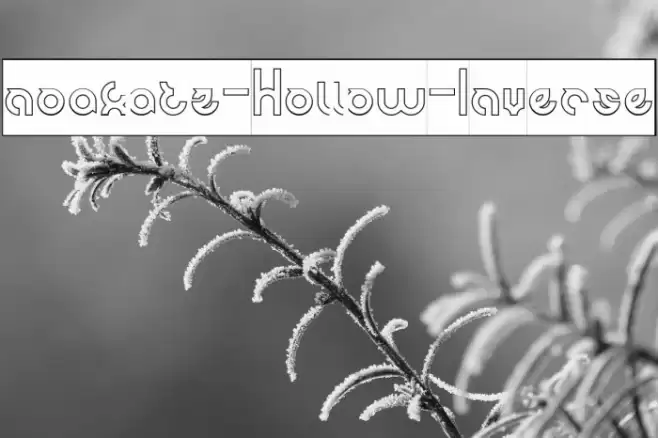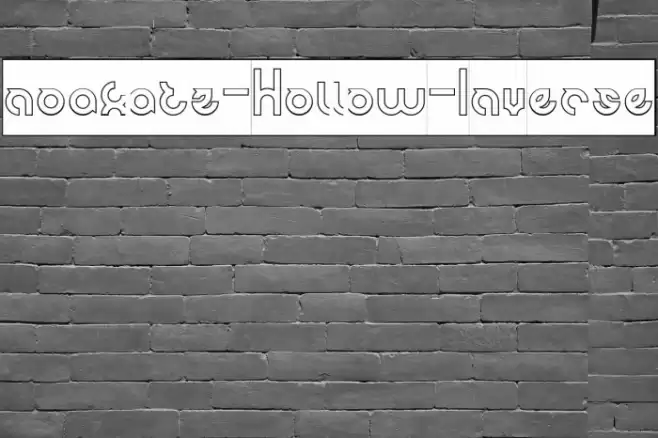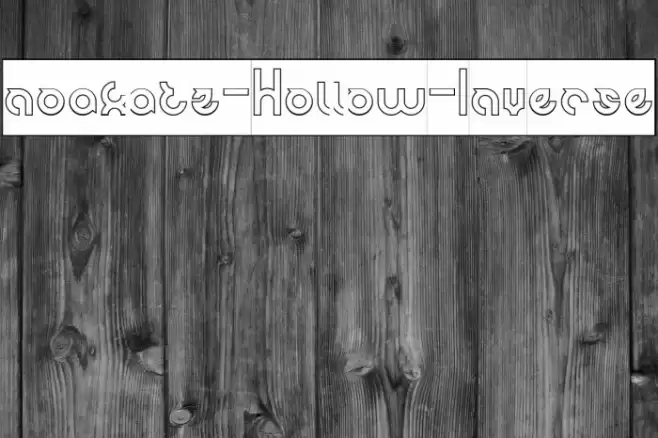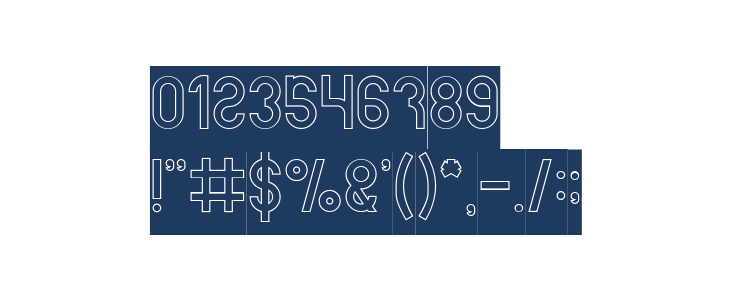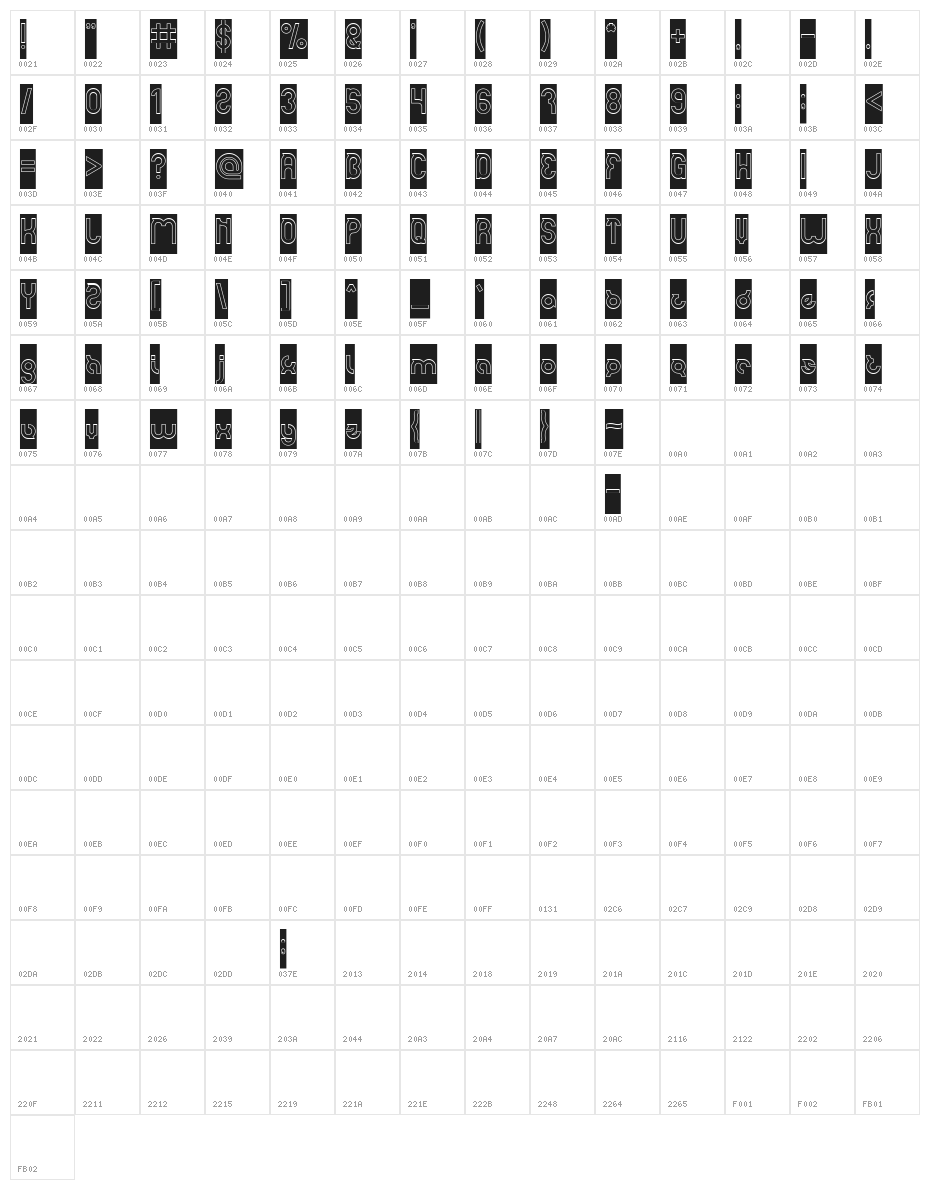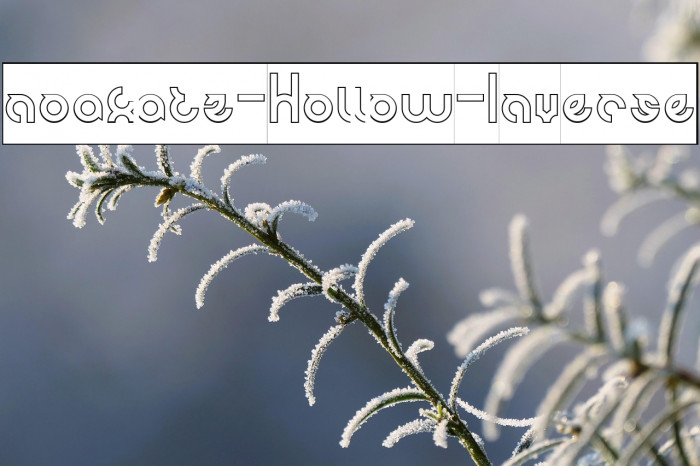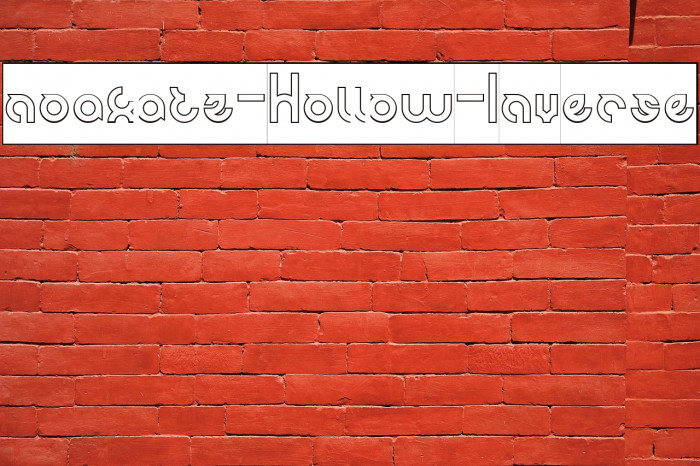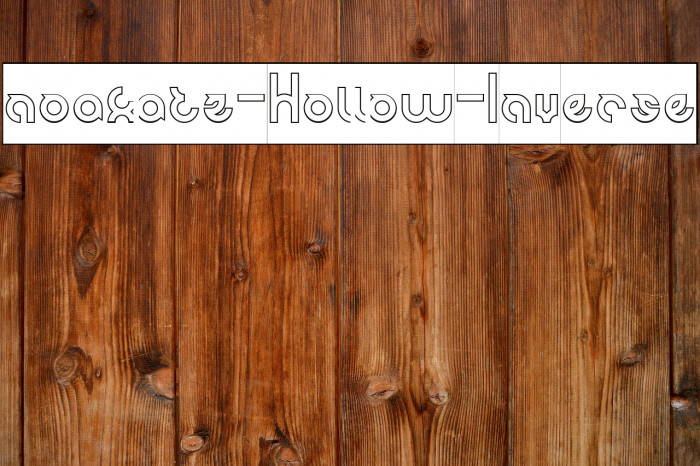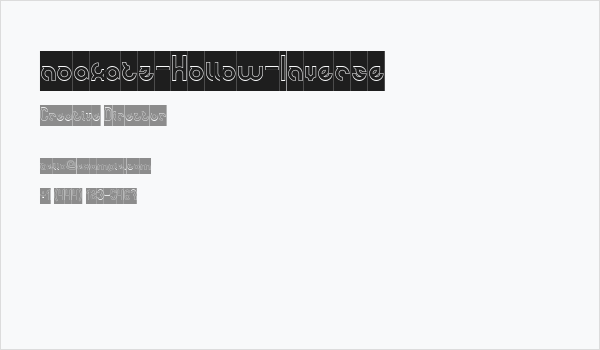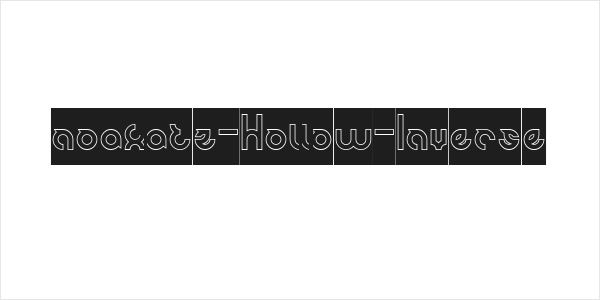
noakatz-Hollow-Inverse Font
noakatz-Hollow-Inverse Description
This font features a unique hollow design with an inverse style, where the interior of each character is outlined, creating a striking visual effect. The uppercase letters are bold and geometric, with sharp angles and clean lines that give them a modern and futuristic appearance. The lowercase letters maintain the same hollow style, with a slightly more rounded and playful feel. Numbers and special characters are consistent with the overall design, ensuring uniformity across all elements. The font's distinct look makes it ideal for projects that require a bold statement or a creative touch.
A modern, hollow inverse font with bold geometric shapes and clean lines from Uncategorized fonts.
- Proposed Projects: Ideal for branding, posters, album covers, and any creative projects that require a standout, modern typeface.